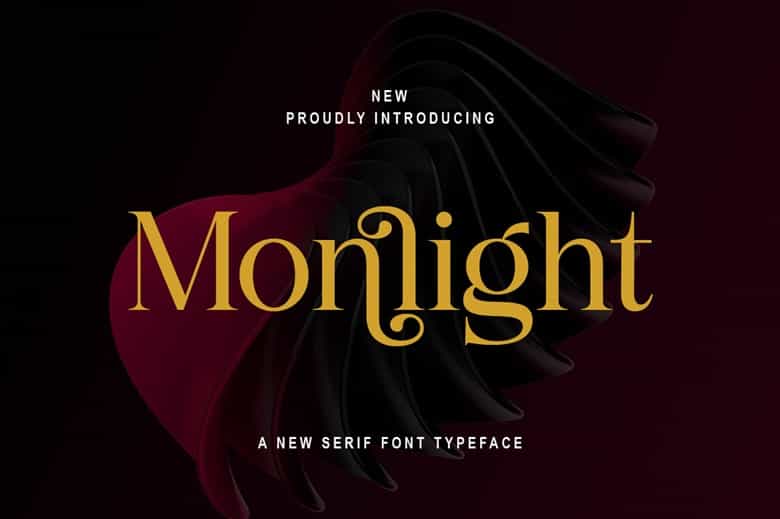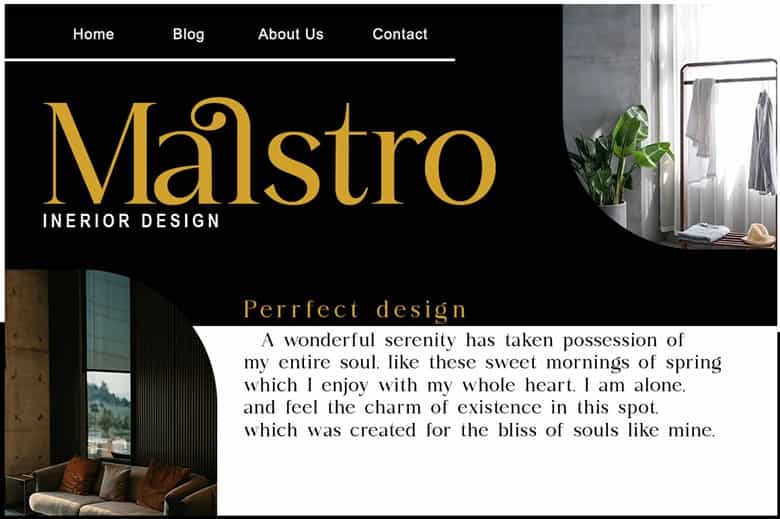
Monlight is a new serif typeface with a bold, clean and large shape of the letter. In its general sense the typeface is successful in portraying balance between the letters. This looks best when used on Instagram, poster, website design, magazine, logo, or product.